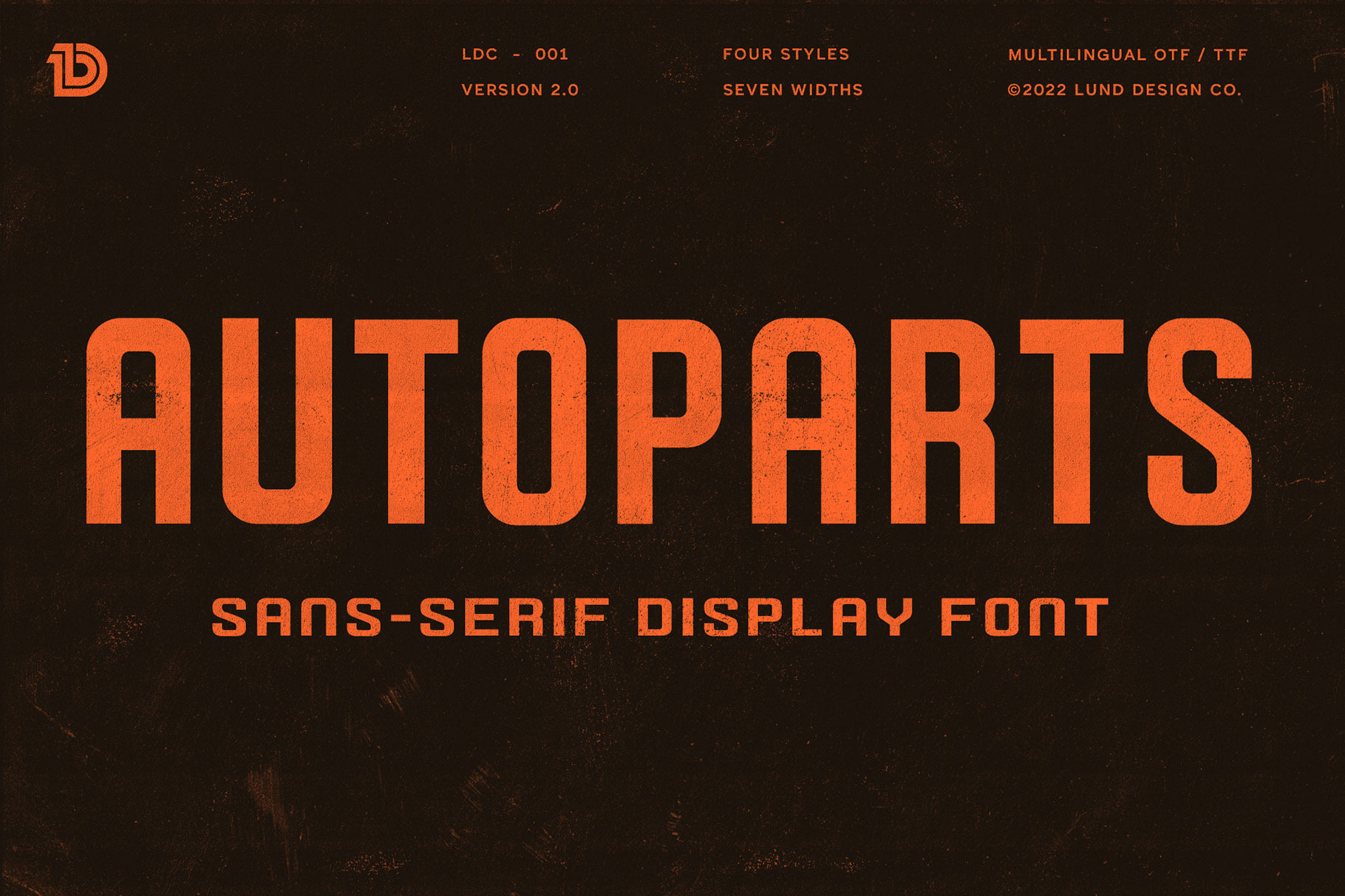
AUTOPARTS Retro Display Font
Autoparts is a family of display typefaces which is based on vintage branding and painted signage seen around Los Angeles. It is strong, confident and sophisticated; giving it flexibility for a broad range of uses. There are seven widths of the font and four styles; Regular, Rounded, Rough and Shadow. It includes accents & multilingual characters.
This hardworking sans serif is great for display use, branding, logos, posters, packaging, magazines, films and more.